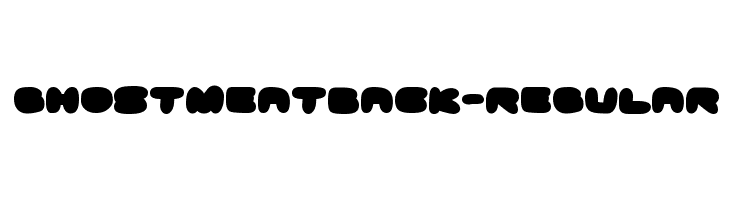
A bold, playful font with rounded, blob-like characters.
A bold, playful font with rounded edges and a quirky, retro-modern style.
A playful, bold font with rounded edges and a whimsical design.